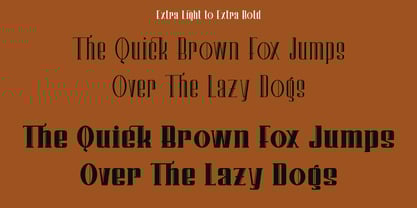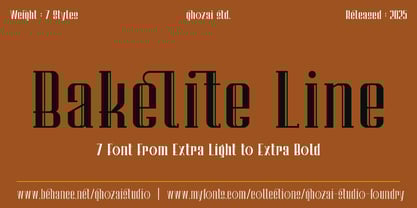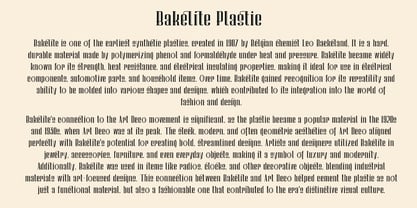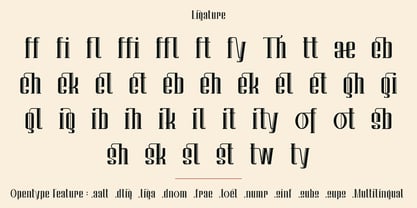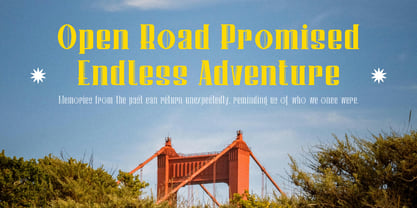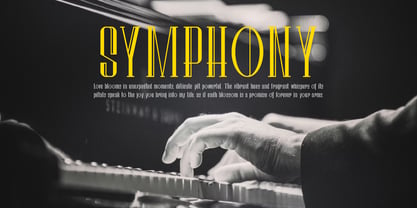
Bakelite Line
The Bakelite Line Font Family was designed by Manzur Ghozaali and published by Ghozai Studio. Bakelite Line contains 7 styles and family package options. More about this family
Bakelite Line is a tall and elegant sans serif font available in seven weight styles, ranging from extra light to extra bold, and is inspired by the classic era/art deco era. Bakelite Line is the decorative version of our vintage font Bakelite. Its design features a combination of thin curves and straight stems, creating high contrast and adding personality to the font. Bakelite Line also includes a wide range of ligatures, providing more options for your design needs. With its diverse range of styles, Bakelite Line is suitable for various design projects, including luxury applications such as hotel logos, restaurant menus, posters, web applications, and wedding invitations, as well as for fashion-related designs, band posters, headlines, and more.